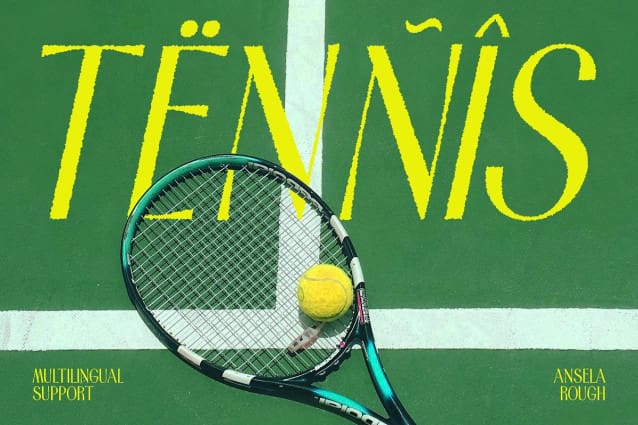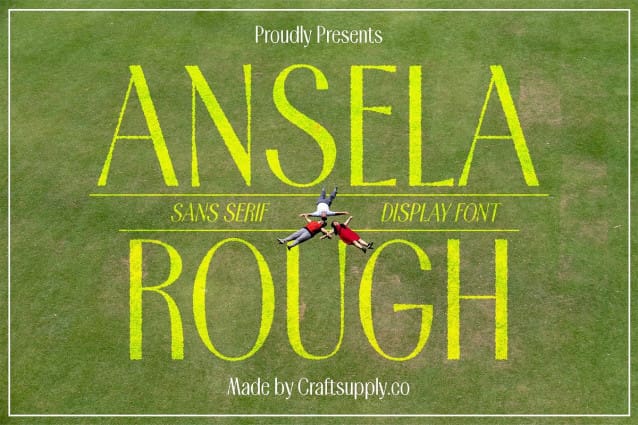
Ansela Rough Font
Ansela Rough Font is a modern condensed sans-serif font that marries minimalist design with elegant proportions. Its sleek lines are complemented by a distinctive rough texture, adding a subtle edge to its refined appearance.
Sophisticated Design with a Unique Texture The condensed form of Ansela Rough ensures an efficient use of space while maintaining a sophisticated look. The rough texture introduces a unique visual element, enhancing the font’s modern aesthetic with a touch of rugged charm.
Ideal for Sleek, Refined Projects Perfect for projects that demand a refined yet understated look, Ansela Rough is an excellent choice for sleek branding, sophisticated editorial layouts, and contemporary web design. Its modern and minimalist design makes it versatile for a range of applications, from high-end advertising to elegant print materials.
Versatile and Contemporary Ansela Rough’s balance of clean design and textured detail makes it suitable for various uses, offering a distinctive and memorable impact. Whether used in headlines, logos, or promotional materials, this font provides a fresh, modern edge to any project.